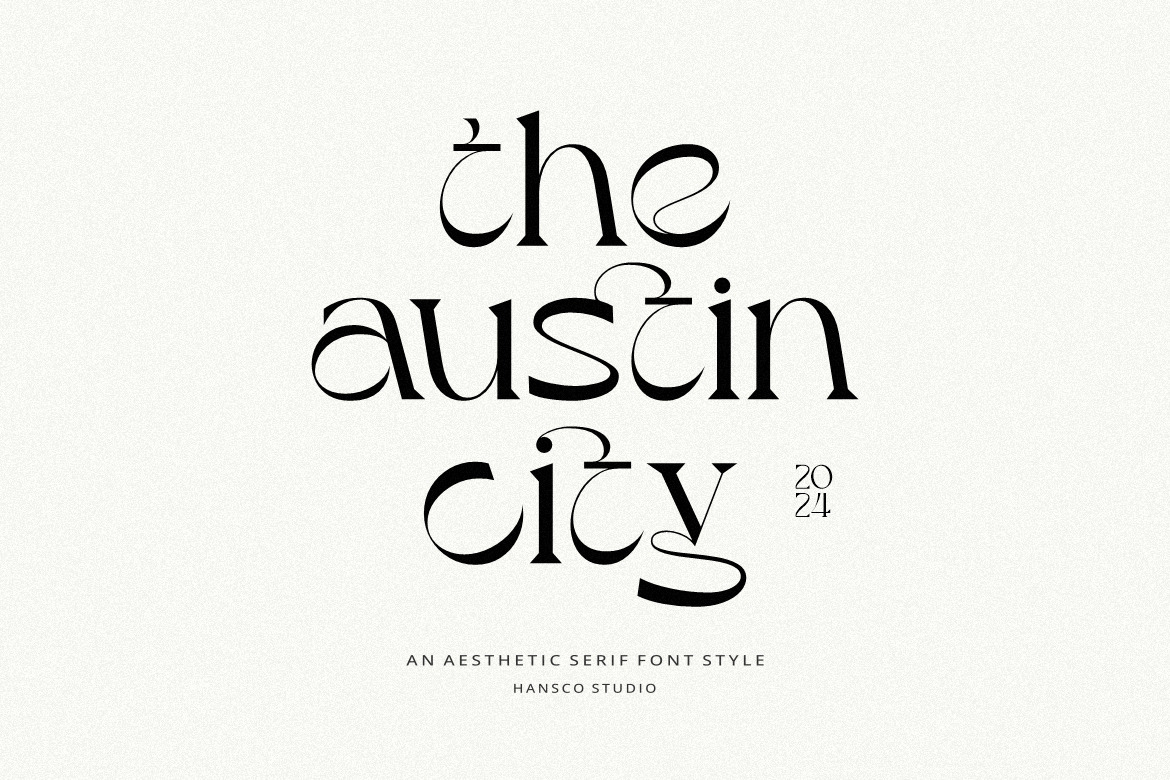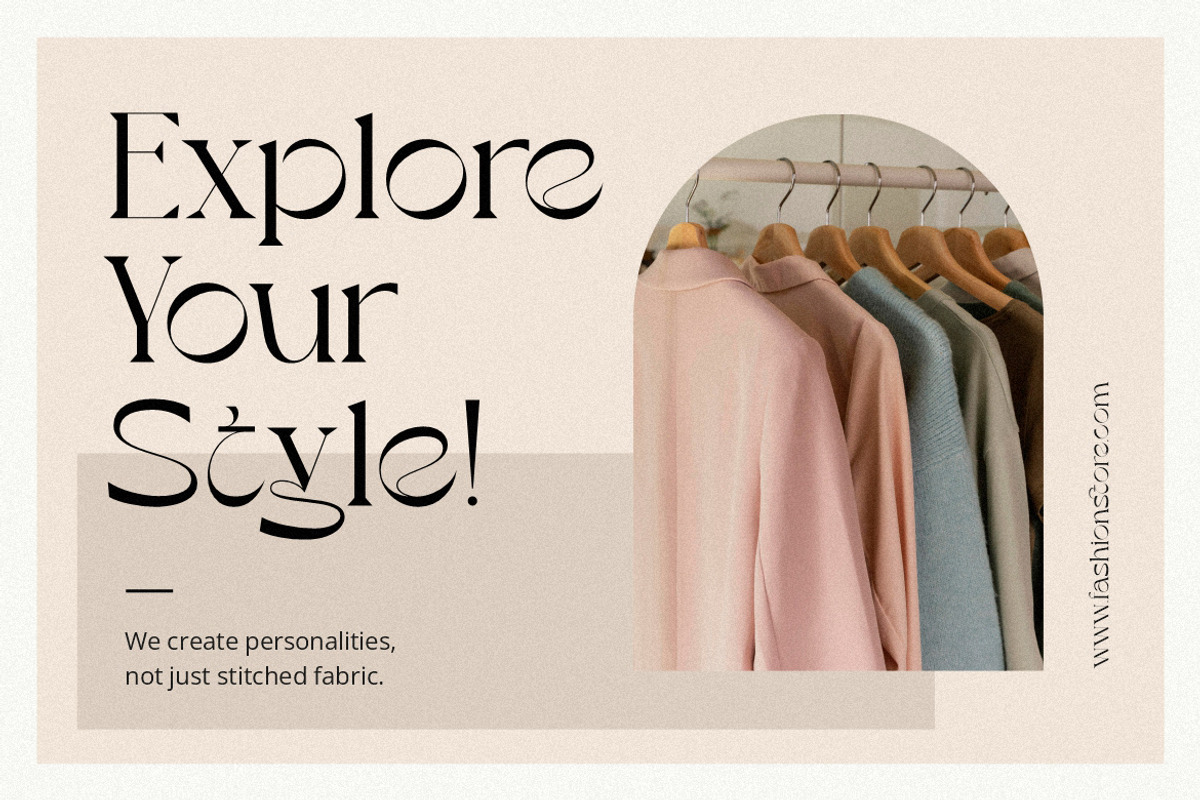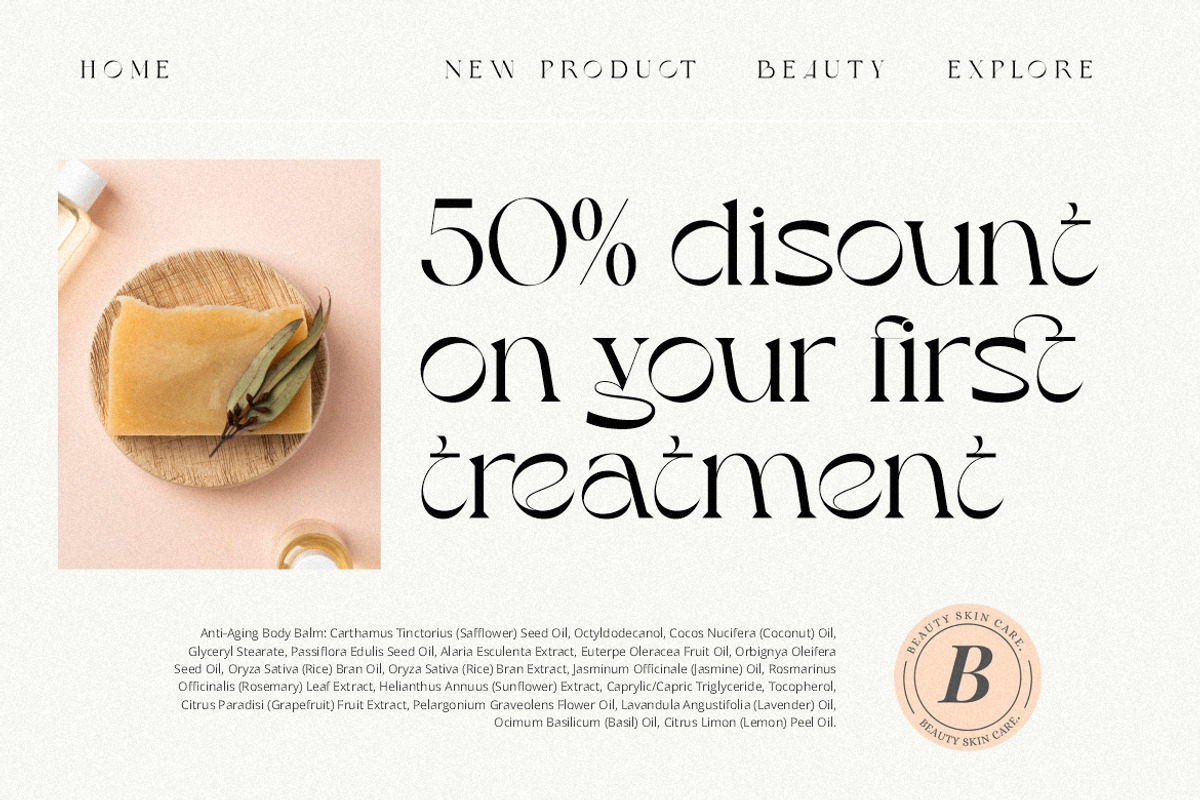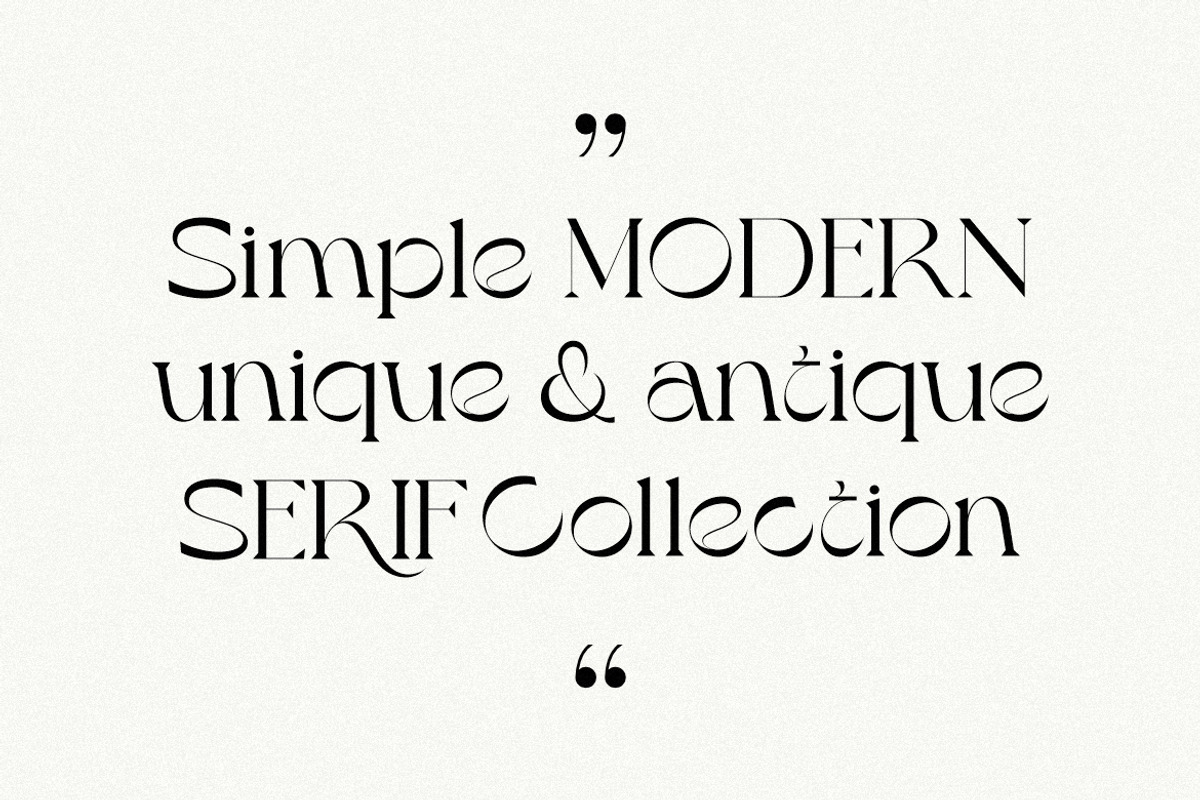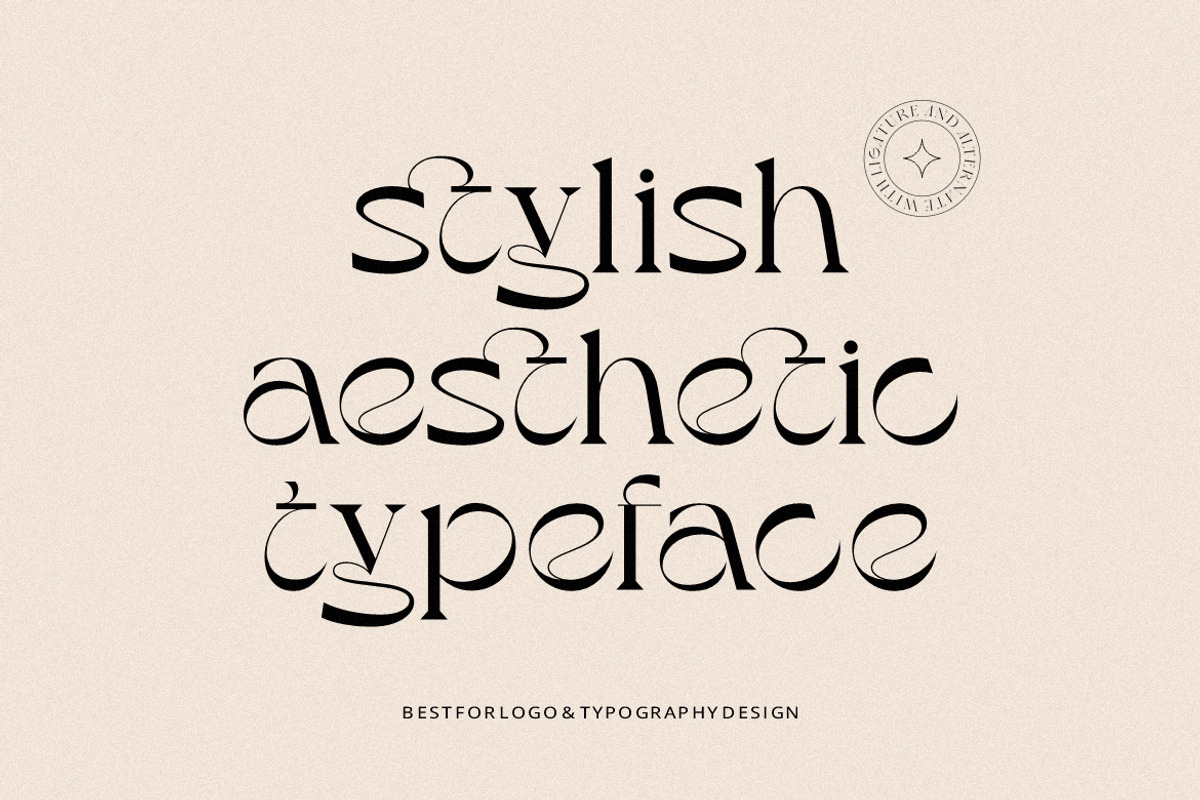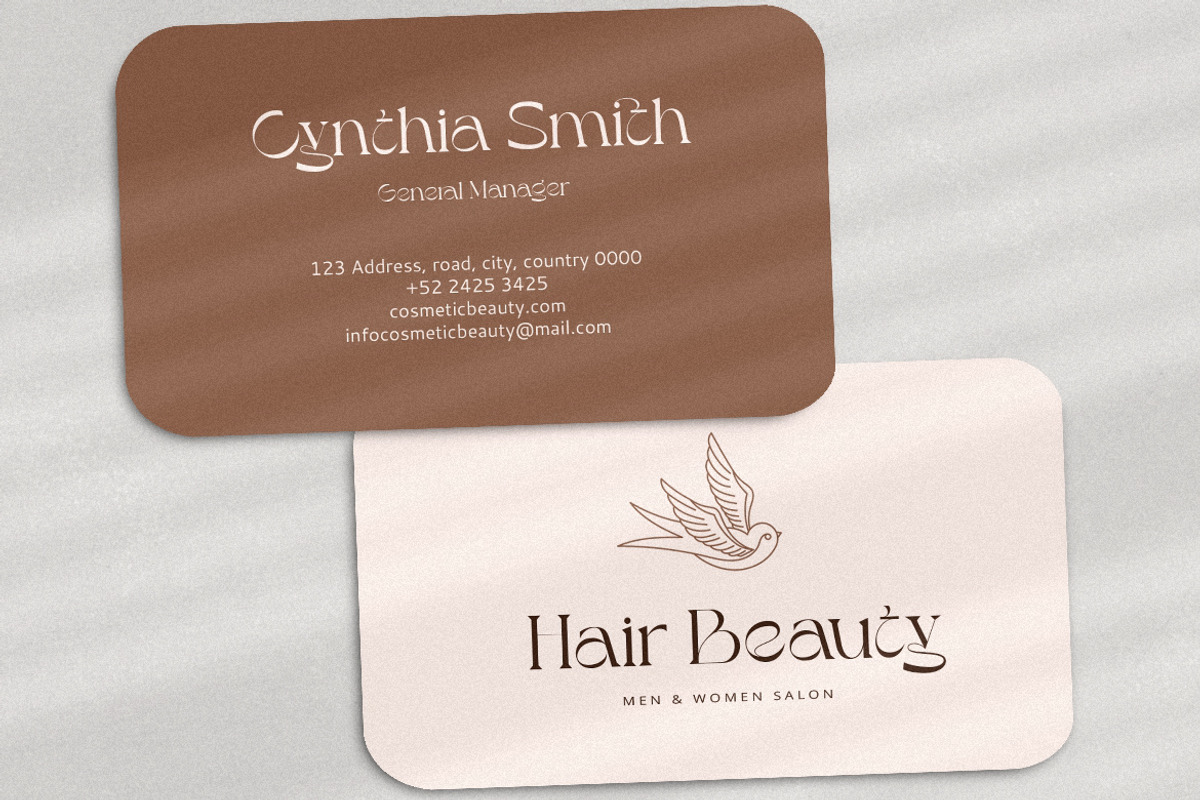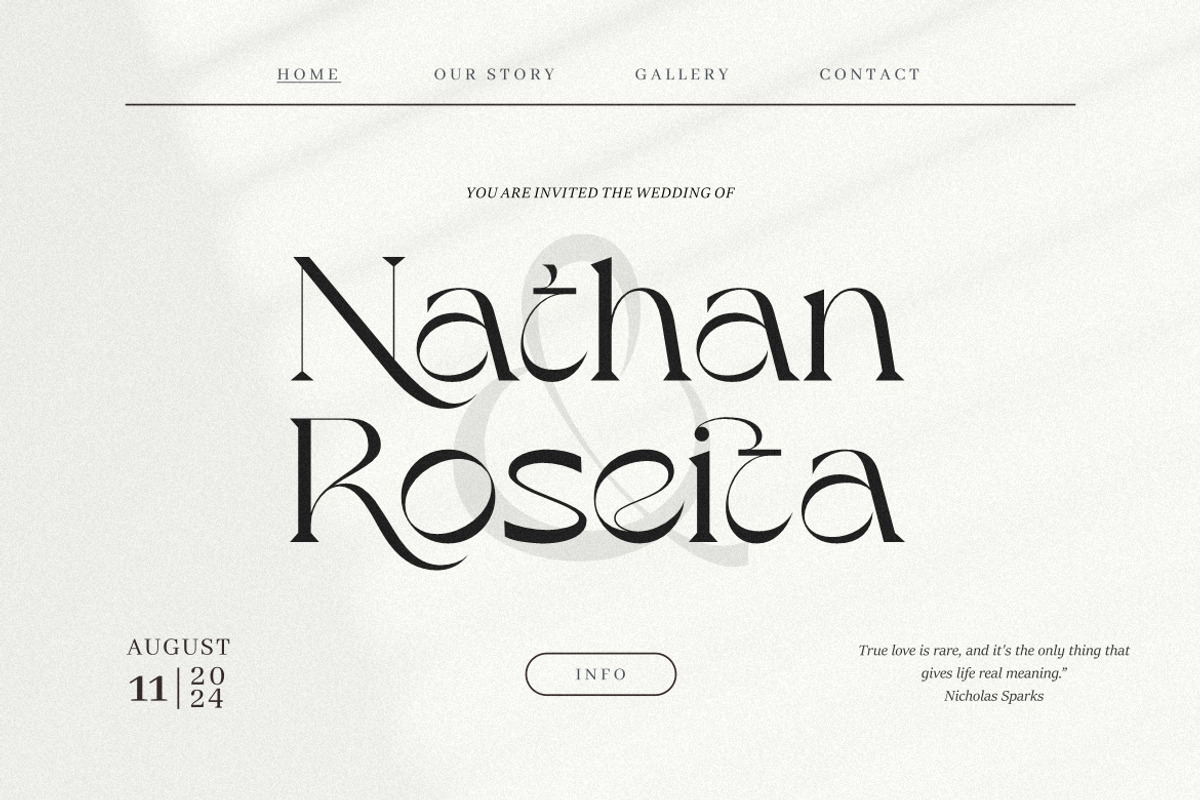
Austin City - Aesthetic Serif Font
Austin City Font is a classy display serif font with unique look that is perfect for multipurpose projects. Austin City Font inspired by the concept of romantic vibes and made it into a modern yet luxury style. This font is also looks elegant and will fit well in any design and very recommended for logo, crafts, posters, books, branding, quotes, print templates, packaging, invitations, product labels, advertising, wedding project and more. This typeface comes in uppercase, lowercase, with punctuation, symbols, numerals, ligature and stylistic alternates. This font is PUA encoded which means you can access all of the charming glyphs and swashes with Character Map on Windows or Font Book on Mac.